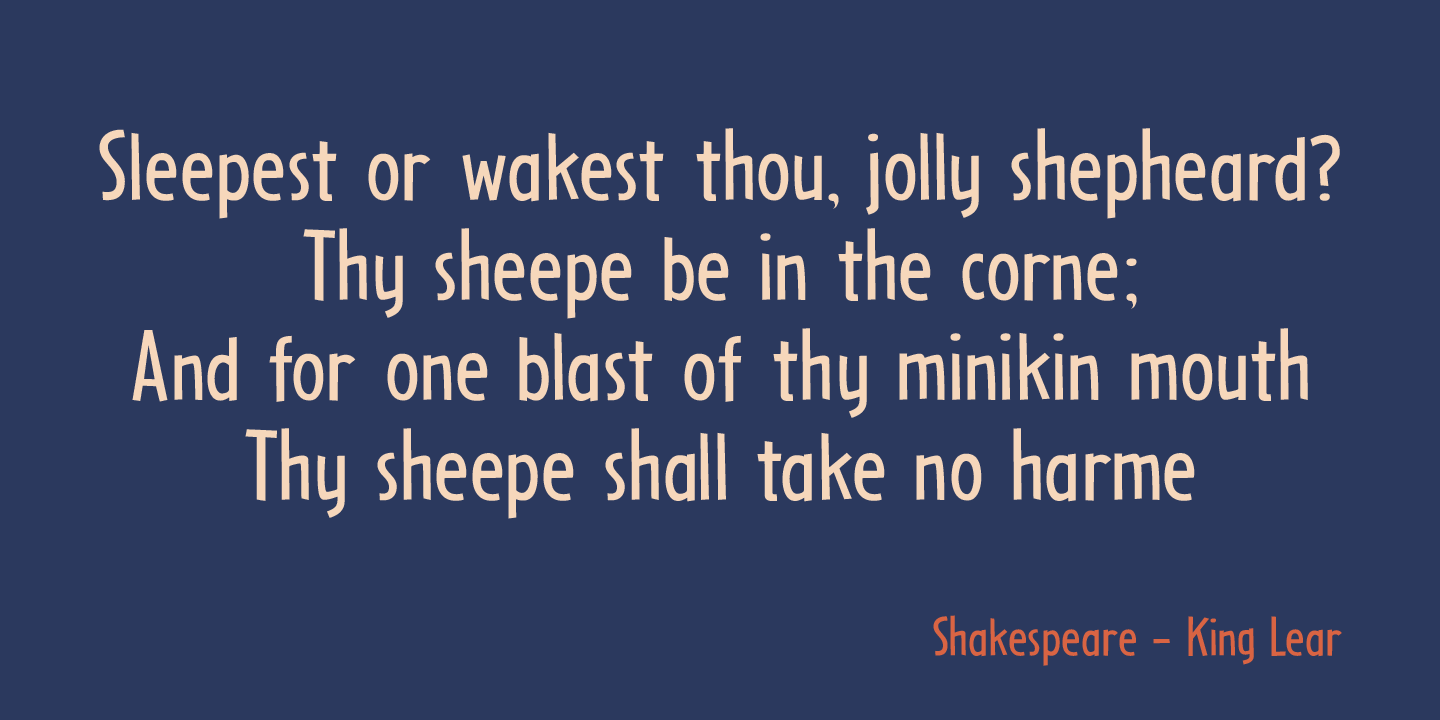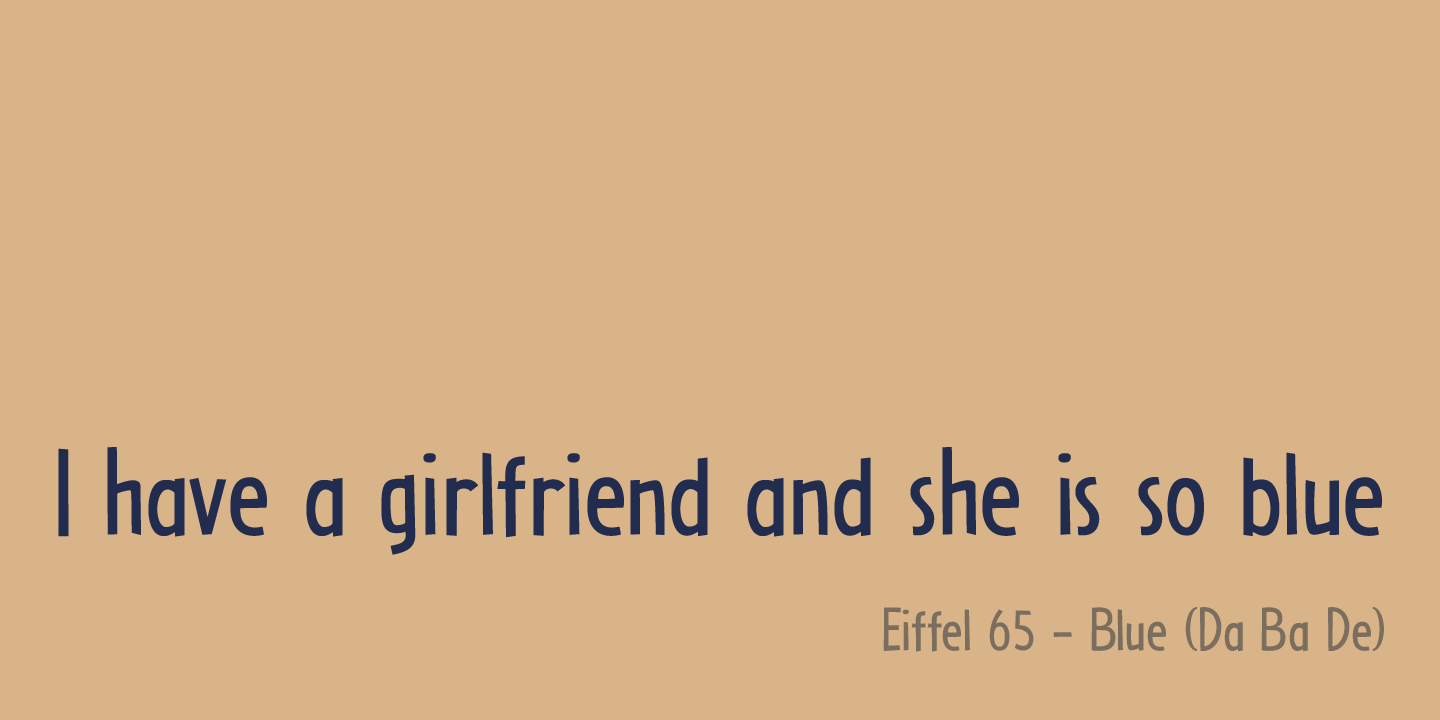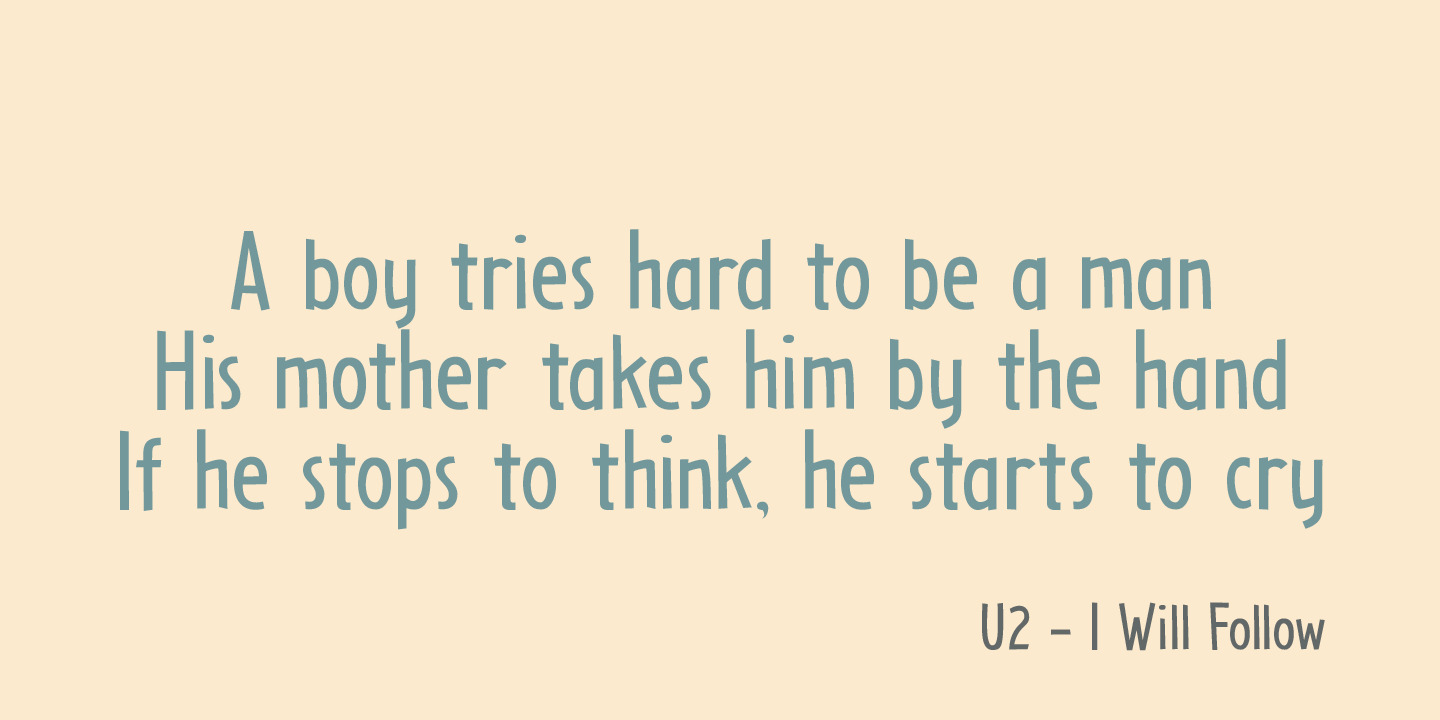
Little Boy Blue
Font Family by Hanoded
I believe it was Picasso who had a Blue Period between 1901 and 1904. It seems that I have one myself - really not comparing myself to Picasso btw? Recently I created Blue Sheep font and now this one: Little Boy Blue. Little Boy Blue is a very legible, easy-on-the-eye font for texts, books, covers and packaging. Comes with 50 shades of diacritics.